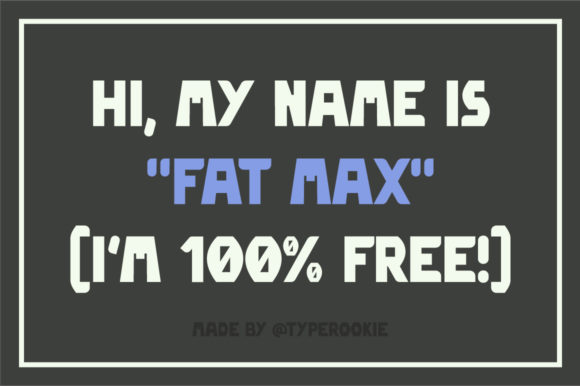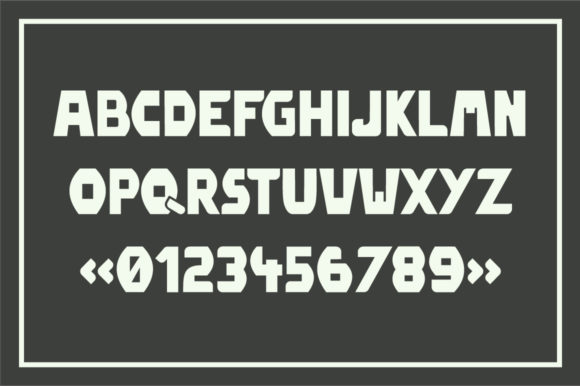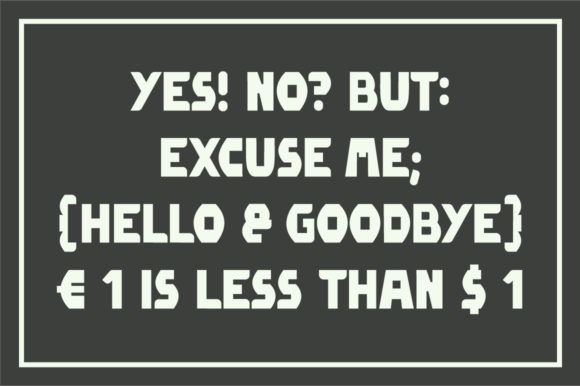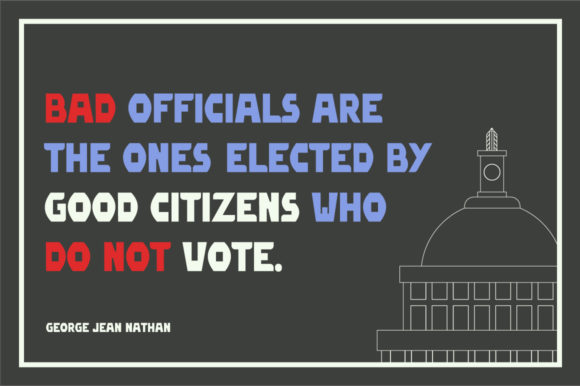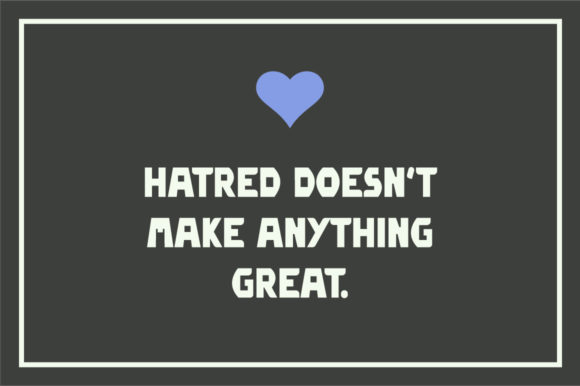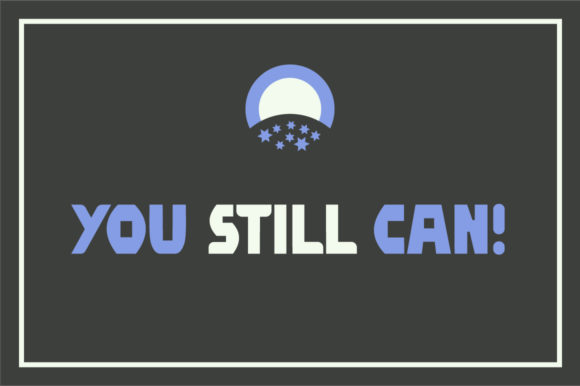
About Fat Max Font
Fat Max is a bold-lettered display font. It will add a unique and fun touch to your projects, be it branding, logos, greetings cards and more!